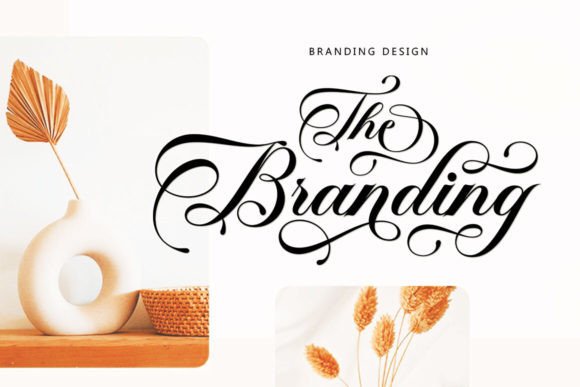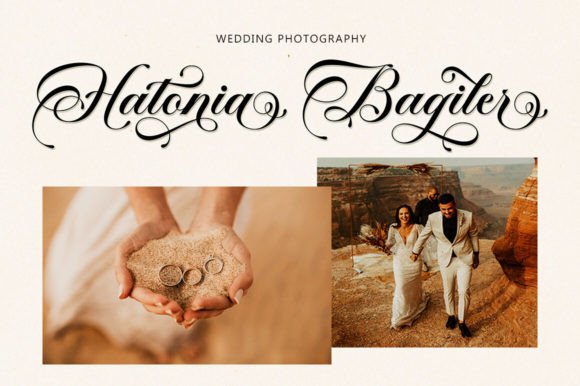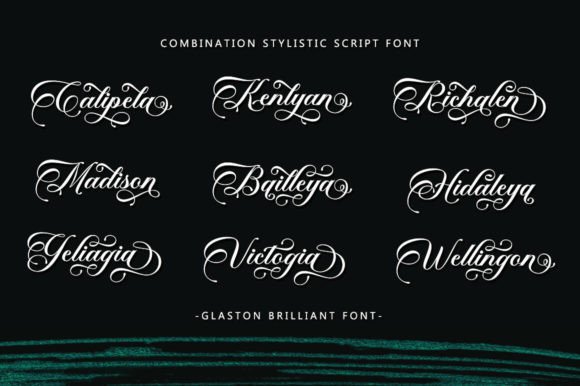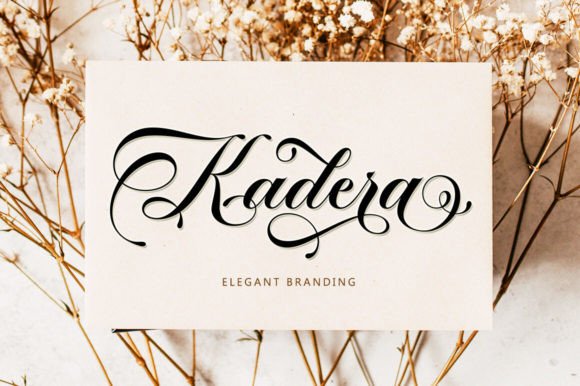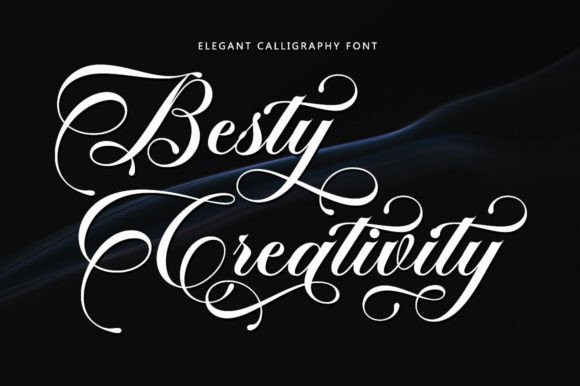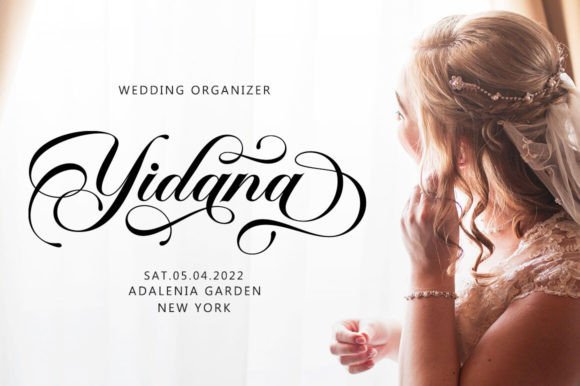
Introduction to Glanston Brilliant Font
Imagine you’re flipping through a high-end fashion magazine, and the elegant script font catches your eye. The curves are smooth, the lines are clean, and the overall effect is nothing short of luxurious. That’s the magic of the Glanston Brilliant Font – a design resource that elevates any creative project to new heights.
As a designer, you know how difficult it can be to find the perfect font to match your vision. But with the Glanston Brilliant Font, you’ve got a high-quality design asset that’s ready to take your work to the next level. Whether you’re working on a free download project or a paid commission, this font is sure to impress. And with its transparent background and versatile styling options, you can use it for everything from invitations to packaging labels.
So, what makes the Glanston Brilliant Font so valuable to designers? For starters, its classic copper decorative script design is both elegant and easy to read, making it perfect for a wide range of creative projects. And with its luxurious touch and beautiful character changes, it’s sure to add a touch of sophistication to any design.
Key Features of Glanston Brilliant Font
- High-quality design resource ideal for creative projects, including graphic design, digital art, and web development.
- Unique, stylish design with a transparent background, allowing for easy customization and layering.
- Great for use in a variety of creative projects, from logos and branding to digital art and print materials.
Honest Review: Glanston Brilliant Font
I recently had the chance to work with the Glanston Brilliant Font, and I must say it’s a great addition to any design resource. One of the standout features is its high quality, making it perfect for creative projects that require a touch of sophistication.
One thing I love about this font is its versatility. It comes in both regular and bold weights, allowing you to customize your design to suit your needs. Plus, it’s available for free download, making it an excellent choice for designers on a budget.
Here are some of the things that work well with the Glanston Brilliant Font:
- ✨ High-quality design that looks great on a transparent background
- ✨ Versatile, with both regular and bold weights
- ⚠️ Limited character set, which may not be suitable for lengthy text
- ⚠️ May not be as legible at very small font sizes
Overall, I’m impressed with the Glanston Brilliant Font. It’s a solid choice for designers looking for a high-quality, versatile font that’s easy on the wallet. While it may have some limitations, I think it’s well worth considering for your next creative project.
Tips for Getting the Most Out of Glanston Brilliant Font
Experiment with Font Sizes
Try using different font sizes to create visual interest in your design. This is especially useful when creating headings or titles.
Combine with Other Design Elements
Pair the Glanston Brilliant Font with other design elements, such as images or shapes, to create a visually appealing design resource.
Common Use Cases for Glanston Brilliant Font
Headings and Titles
Use the Glanston Brilliant Font for headings and titles in your design project. Its high quality and unique design make it perfect for grabbing attention.
Design Resources
Use the Glanston Brilliant Font as a design resource for your creative project. Its versatility and high quality make it suitable for a wide range of design applications.